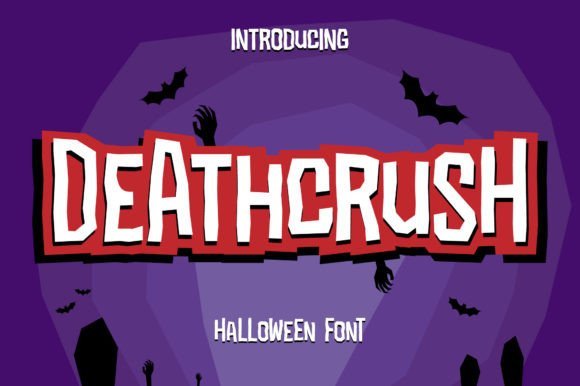
Spicing Up Your Designs with a Dash of Darkness
There’s nothing quite like the rush of creativity that comes with a new design project. You’re brainstorming ideas, experimenting with colors, and trying out new fonts. But sometimes, you need something to really make your design stand out – something that screams ‘Halloween’ or ‘edgy’.
That’s where the Deathcrush Font comes in. This spook-tacular display font is perfect for adding a touch of darkness to your next project. Whether you’re designing a banner, poster, cover, or magazine, Deathcrush Font is sure to make an impact. And with its versatility, you can use it for anything from horror movie posters to gothic-inspired clothing designs.
Deathcrush Font Key Features
- Font Family: A custom-designed font with a distressed, grunge aesthetic.
- Unique Characteristics: Features a distressed, hand-stamped look with subtle texture and irregularities, giving it a unique, handmade feel.
Deathcrush Font Review
When I first laid eyes on the Deathcrush Font, I was immediately drawn to its unique aesthetic. ✨ The font’s bold, distressed look gives it a gritty, industrial feel that’s perfect for anything from heavy metal album art to edgy fashion brands.
One of the things that really stands out about Deathcrush is its versatility. ✨ It comes in a range of weights and styles, from super-thin to ultra-bold, making it easy to use in a variety of design contexts. The font also includes a range of special characters and glyphs, including swashes and ligatures, which add an extra layer of visual interest.
- ⚠️ The font can be quite difficult to read in smaller sizes, which may make it challenging to use in certain design applications.
- ⚠️ Some users may find the font’s distressed look to be too extreme, which could be a turn-off for more conservative design projects.
Overall, I’m really impressed with the Deathcrush Font. It’s a bold, eye-catching choice that’s perfect for designers who want to make a statement. While it may not be suitable for every design project, it’s definitely worth considering for anything that needs a bit of edge and attitude.
Deathcrush font is best suited for titles, headings, and bold text.
Use it to create a striking visual impact in your designs.
For optimal results, pair the font with a clean and simple design aesthetic.
Deathcrush Font Projects
Project 1: Cyberpunk Menu Board
Design a futuristic menu board for a cyberpunk-themed restaurant using the Deathcrush Font. The font’s industrial and edgy feel will perfectly complement the futuristic atmosphere.
To use the Deathcrush Font in this project, create a futuristic background with neon lights and metallic textures. Use the font to display menu items, prices, and special offers in a bold and eye-catching manner.